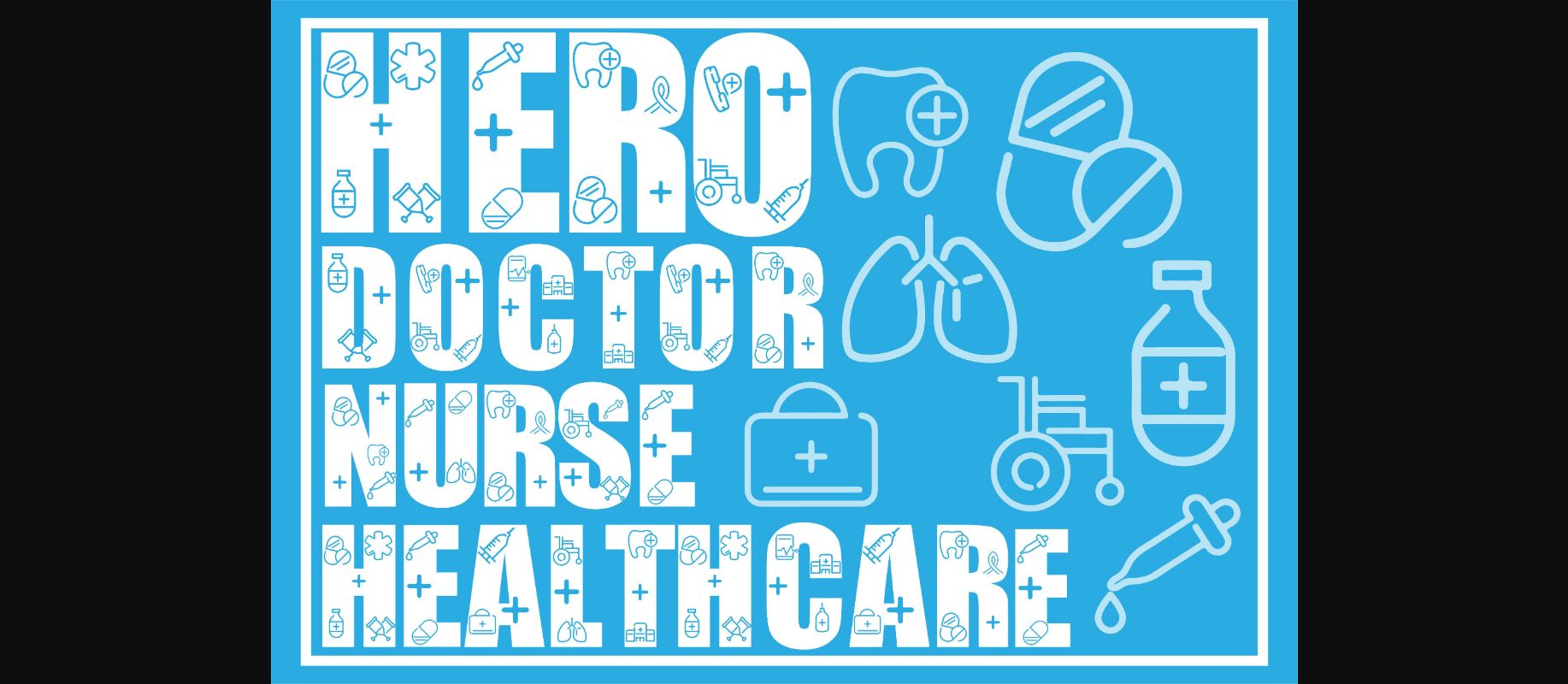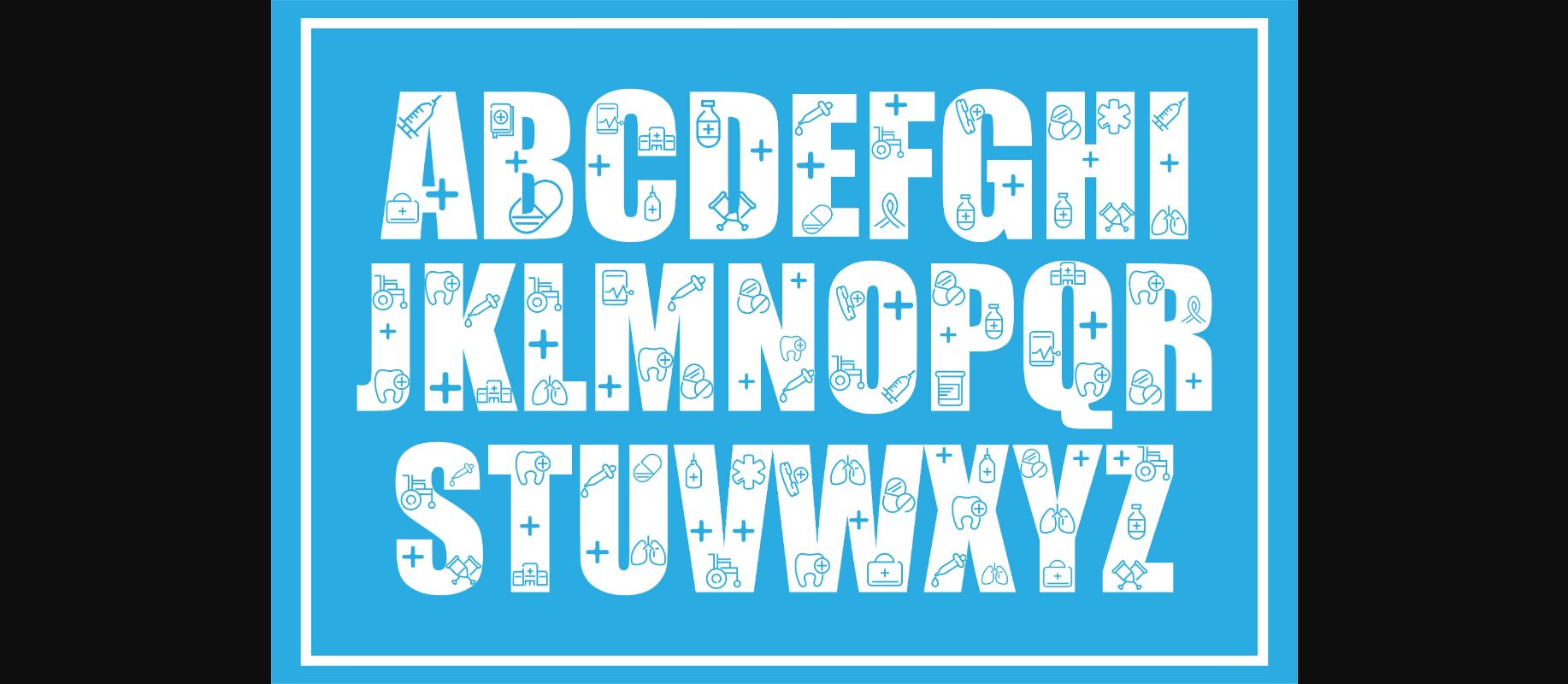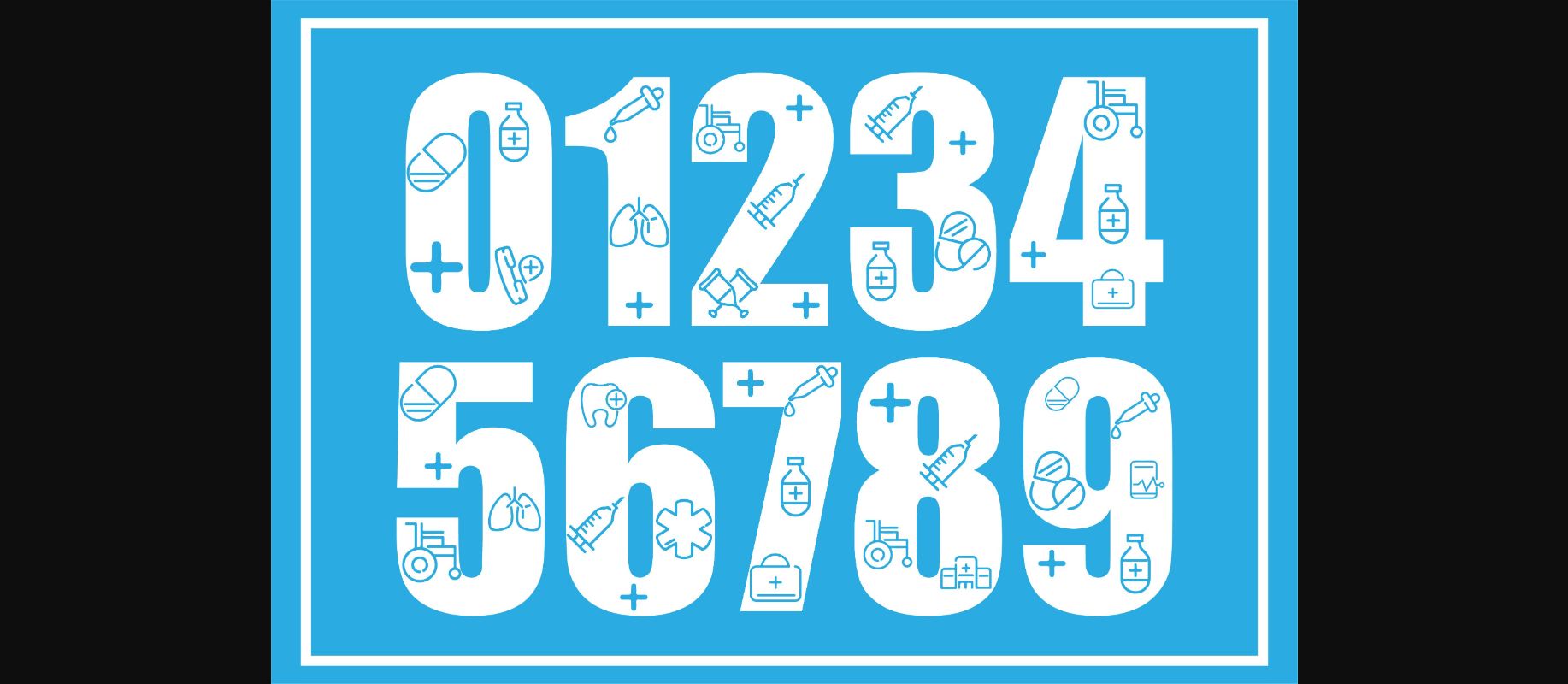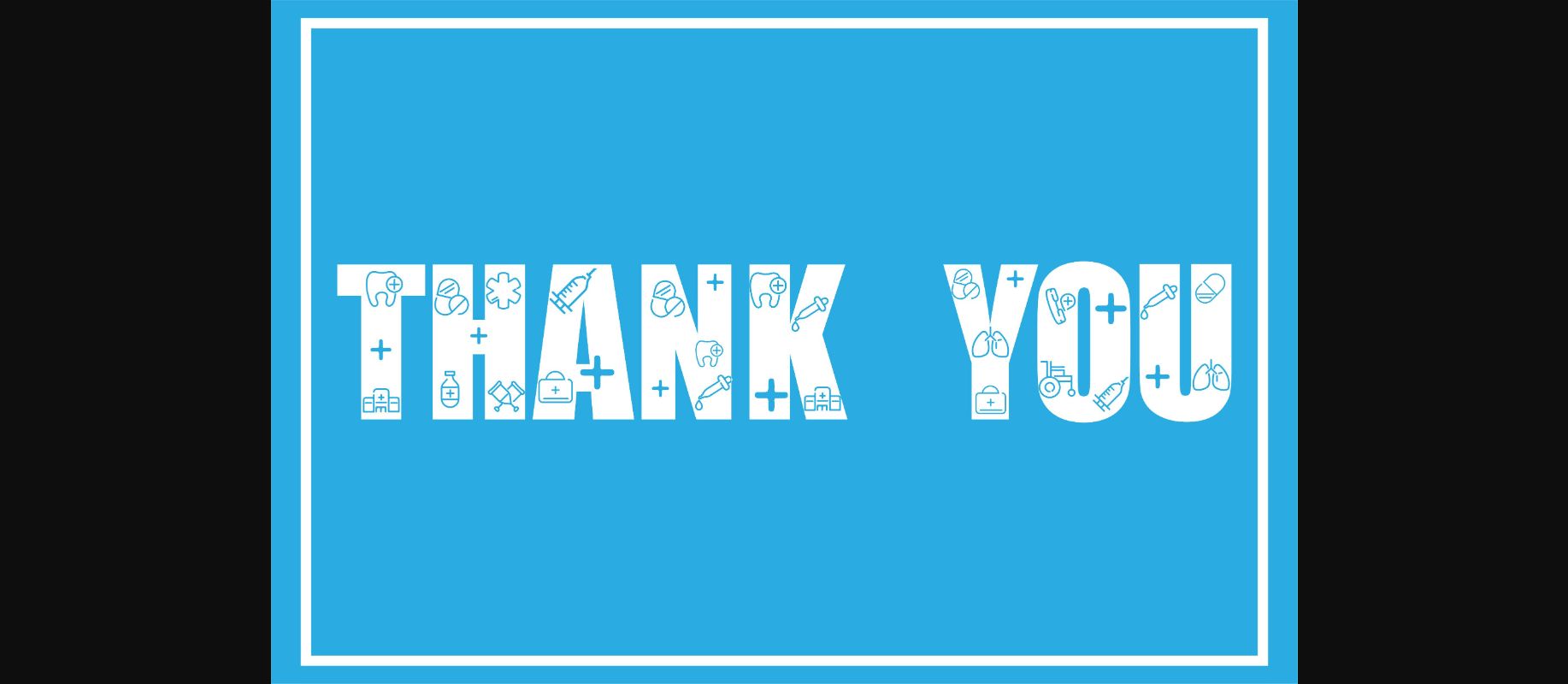
HomeDecorative FontsHero Font Decorative Fonts Hero Font FacebookXPinterestWhatsApp 1 of 6 ... Hero Font Poster 2... Hero Font Poster 3... Hero Font Poster 4... Hero Font Poster 5... Hero Font Poster 6... About Hero Font Hero is a thick lettered and incredibly unique decorative font. It can be used for various design ideas, particularly those related to nurses, doctors & healthcare staff. DOWNLOAD NOW People also explored Vellizta Font Briskriot Font Quezal Font Golden Clouds Font Frankenbury Floral Baby Monogram Font Farmhouse Font Micheliya Font Christmas New Year Font 259 0 TagsHeroHero Font Previous articleBat Halloween FontNext articleSkeleton Font LEAVE A REPLY Cancel reply Comment: Please enter your comment! Name:* Please enter your name here Email:* You have entered an incorrect email address! Please enter your email address here Website: Save my name, email, and website in this browser for the next time I comment. Personal Use Free Husky Stash Personal Use Free Read more about this font Equestrain Personal Use Free Read more about this font Adelia Font Personal Use Free Read more about this font Sebastopol Personal Use Free Read more about this font BLOG Free Fonts Risk: Why Free Fonts Can Be Dangerous for Designers Free Fonts Risk: Why Free Fonts Can Be Dangerous for Designers Using free fonts is a common practice in web and graphic design. However, the... Exploring Font Trends Where to Buy American Fonts Online in 2024 Best Fonts for YouTube Videos: Make Your Thumbnails Stand Out